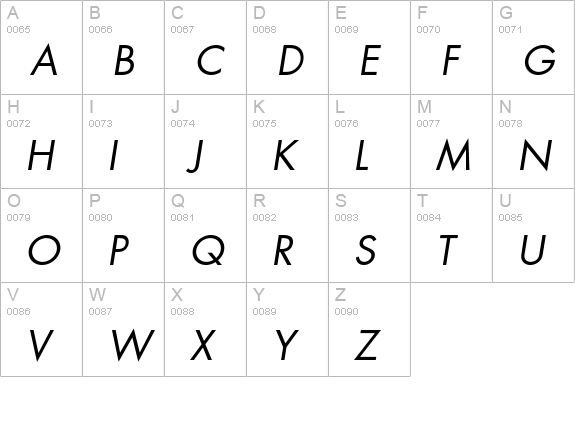
Futura Std Book Oblique Font Details
Futura Std Book Oblique is a comfortable, highly readable, italic variant in the Futura typeface family \xE2\x80\x94 well suited to long-form body text, articles, and editorial content.
Futura Std Book Oblique is a sleek and modern typeface characterized by its slanted design, adding a touch of sophistication and dynamism to any project. With its clean lines and geometric shapes, this font exudes a sense of contemporary elegance. The italicized style of Futura Std Book Oblique brings a stylish and unique flair to text, making it ideal for headings, titles, and other design elements that require a touch of artistic flair. And the best part? Futura Std Book Oblique is available for free download at FontsMarket.com, making it easily accessible for designers, creatives, and anyone looking to add a touch of class to their projects without breaking the bank. So why wait? Enhance your designs today with the timeless appeal of Futura Std Book Oblique.